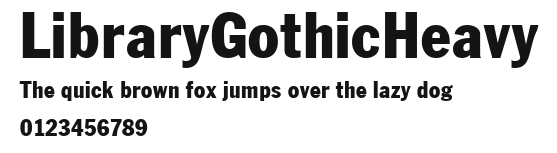
About LibraryGothicHeavy.ttf
LibraryGothicHeavy.ttf is a modern, elegant sans-serif font designed for ultimate readability and visual harmony. Perfect for branding, headlines, web design, and print materials.